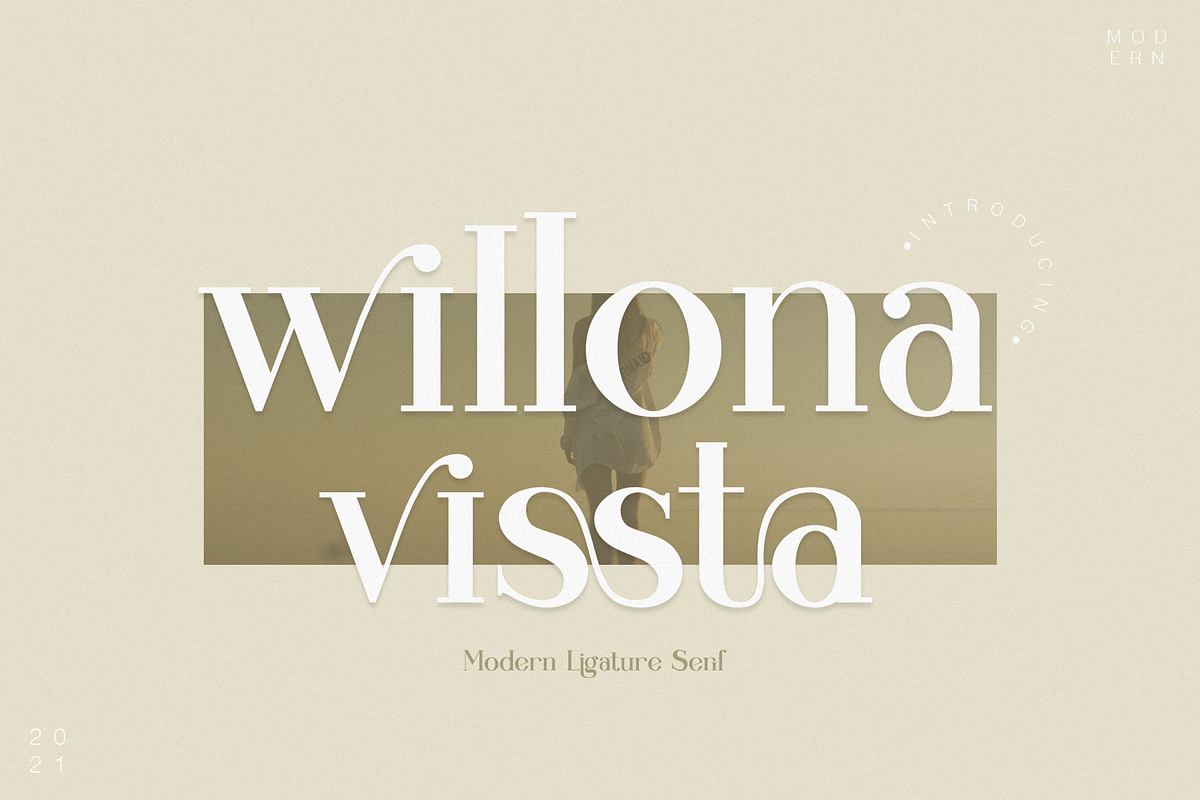
willona vissta Modern Ligature Serif Free Download
Featuring unique ligatures and modern serif elements, this font is perfect for luxury branding, editorial designs, fashion labels, wedding invitations, and upscale packaging. Its refined letterforms and high-contrast strokes give it a timeless yet contemporary look.
With Willona Vissta Modern Ligature Serif Font Free Download, you gain access to a beautifully crafted typeface that’s both functional and aesthetically pleasing. It’s easy to install and works seamlessly across popular design software. If you’re aiming to elevate your visual identity with a touch of modern elegance, this font is a must-have. Download it today and explore its creative potential!